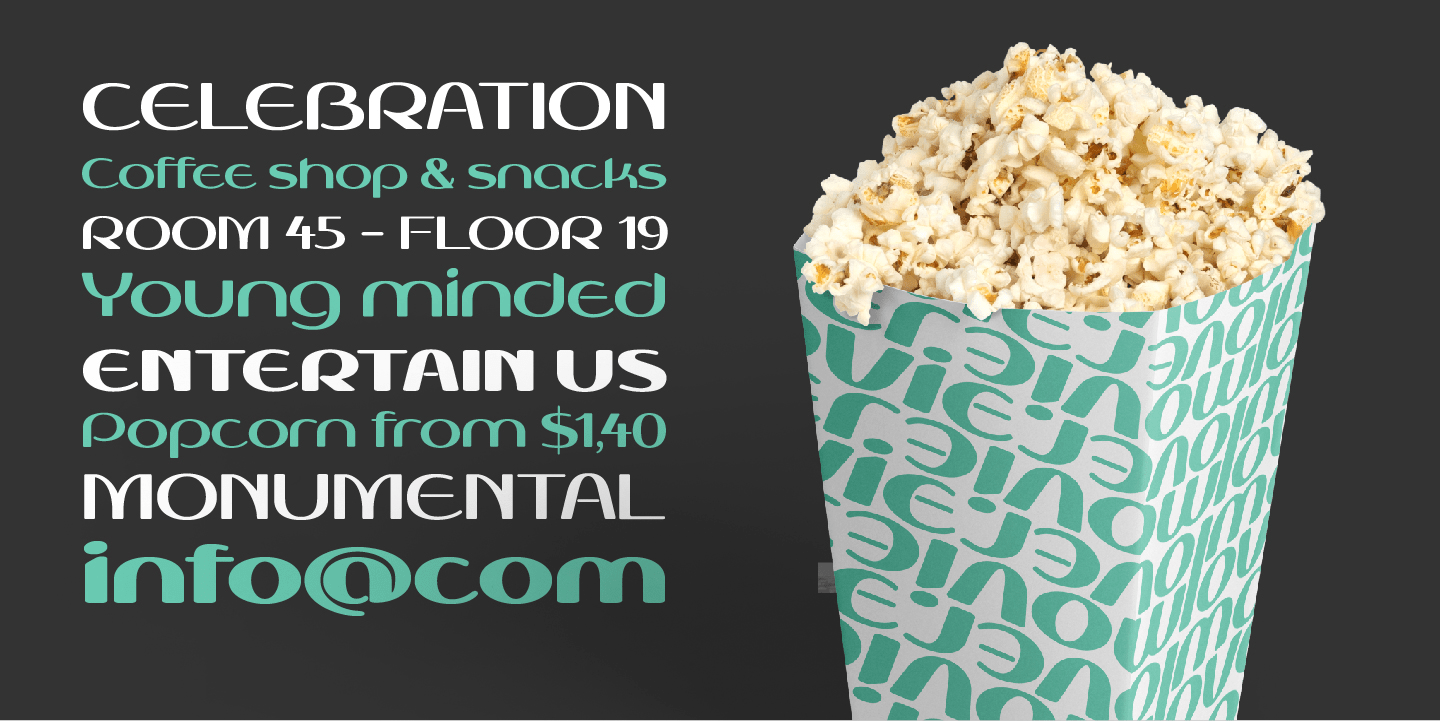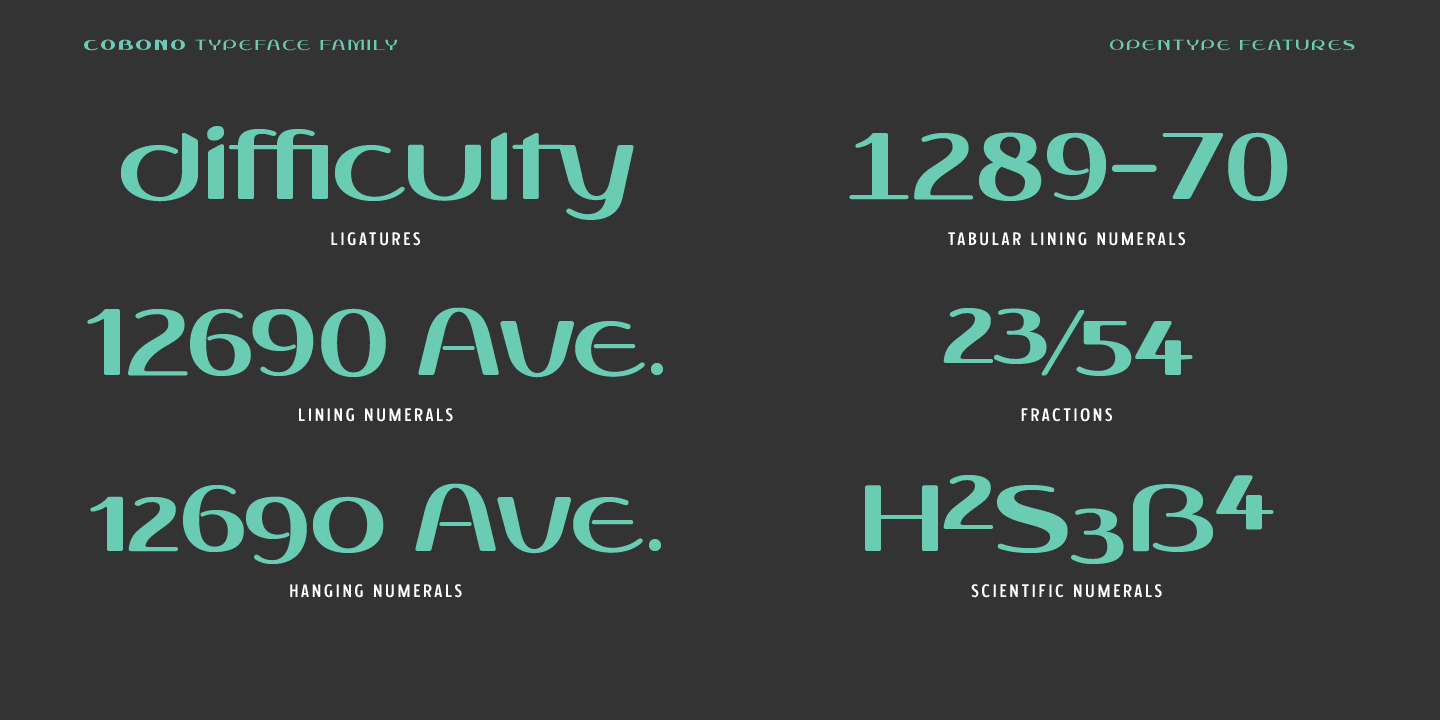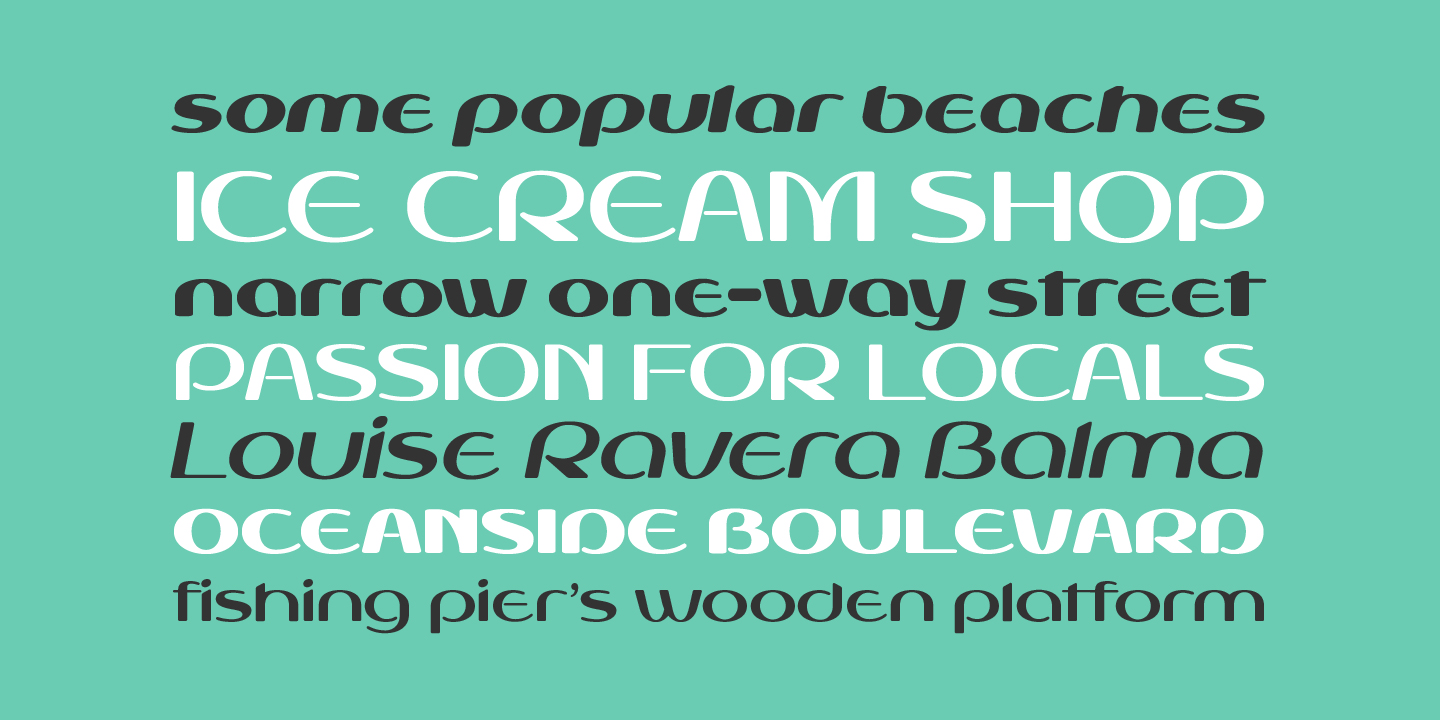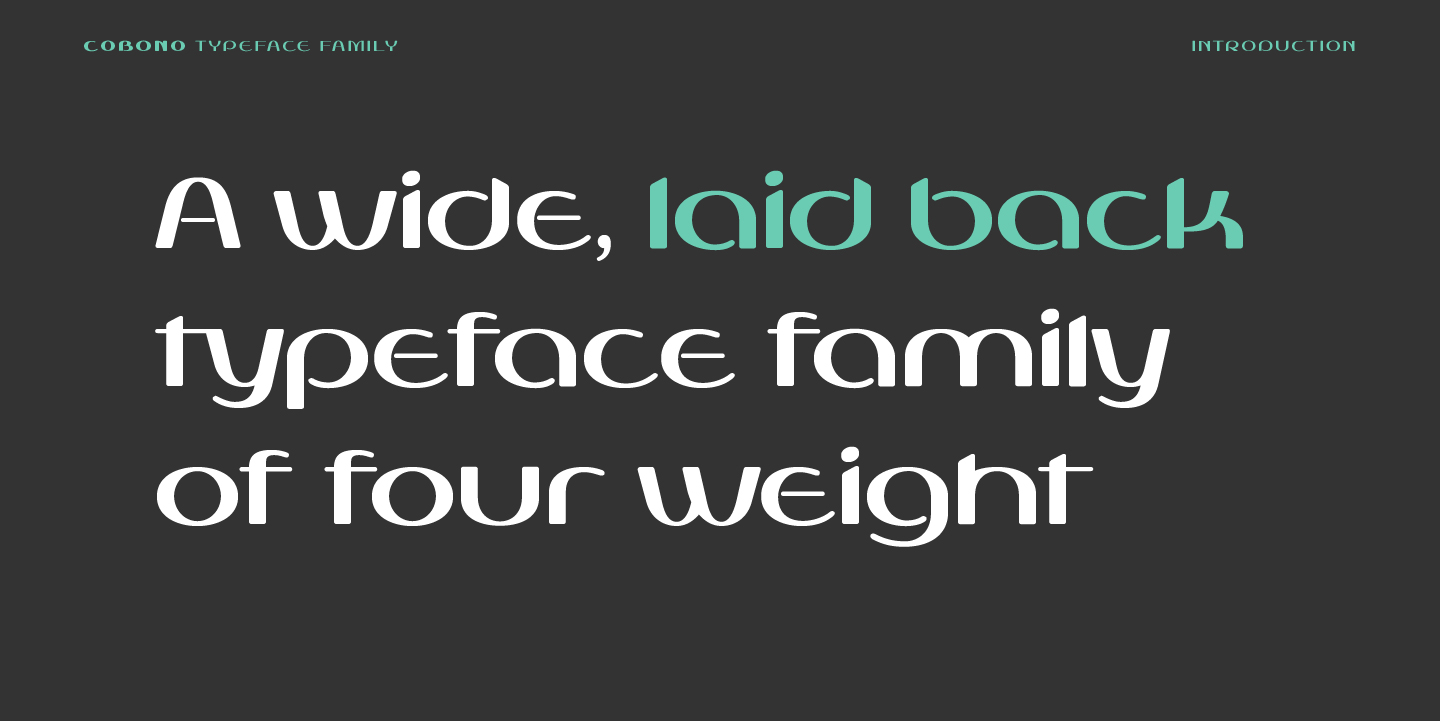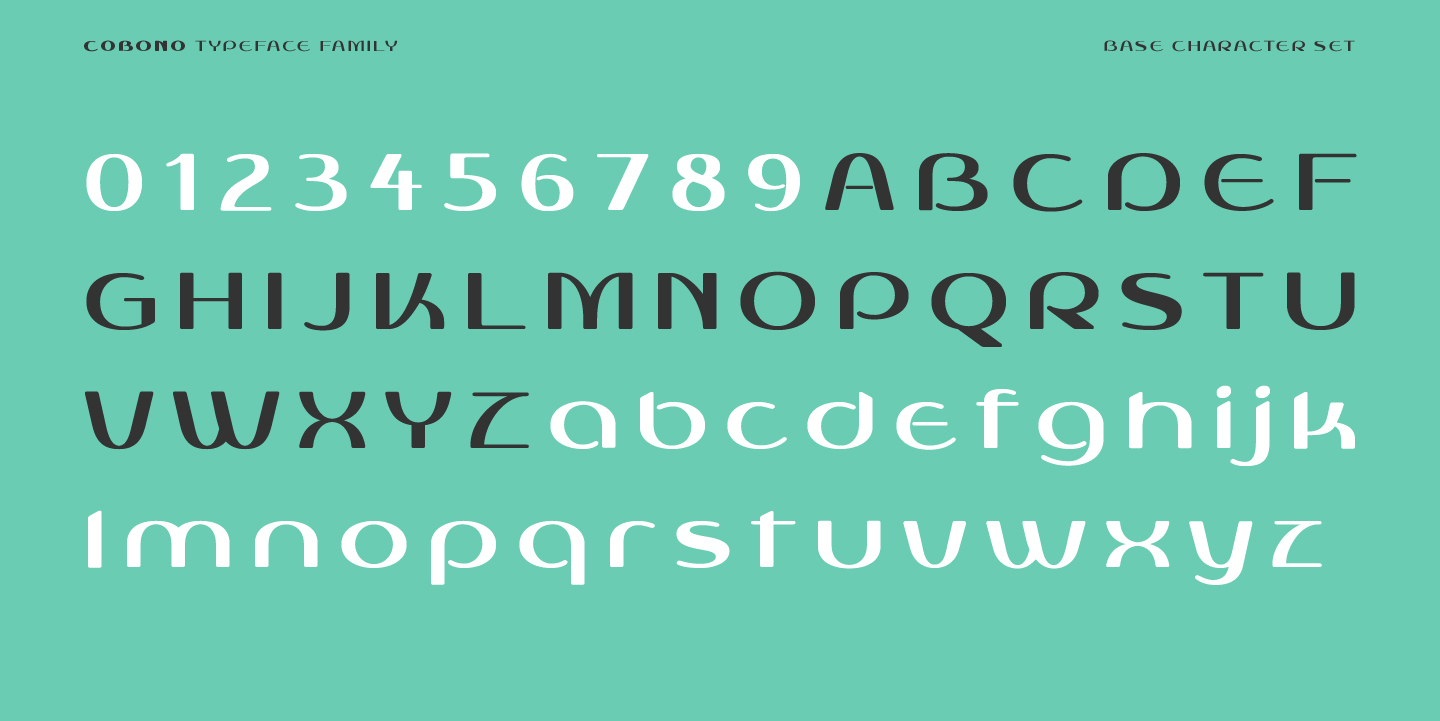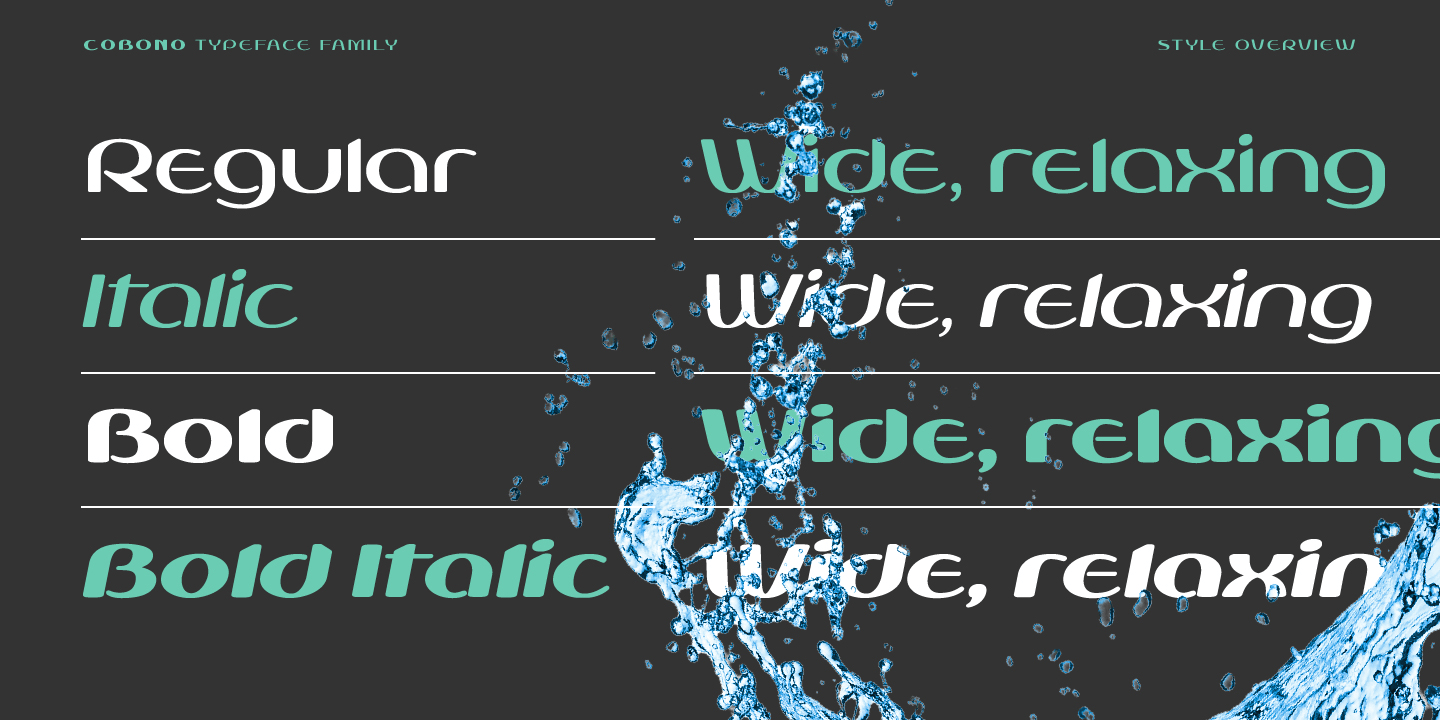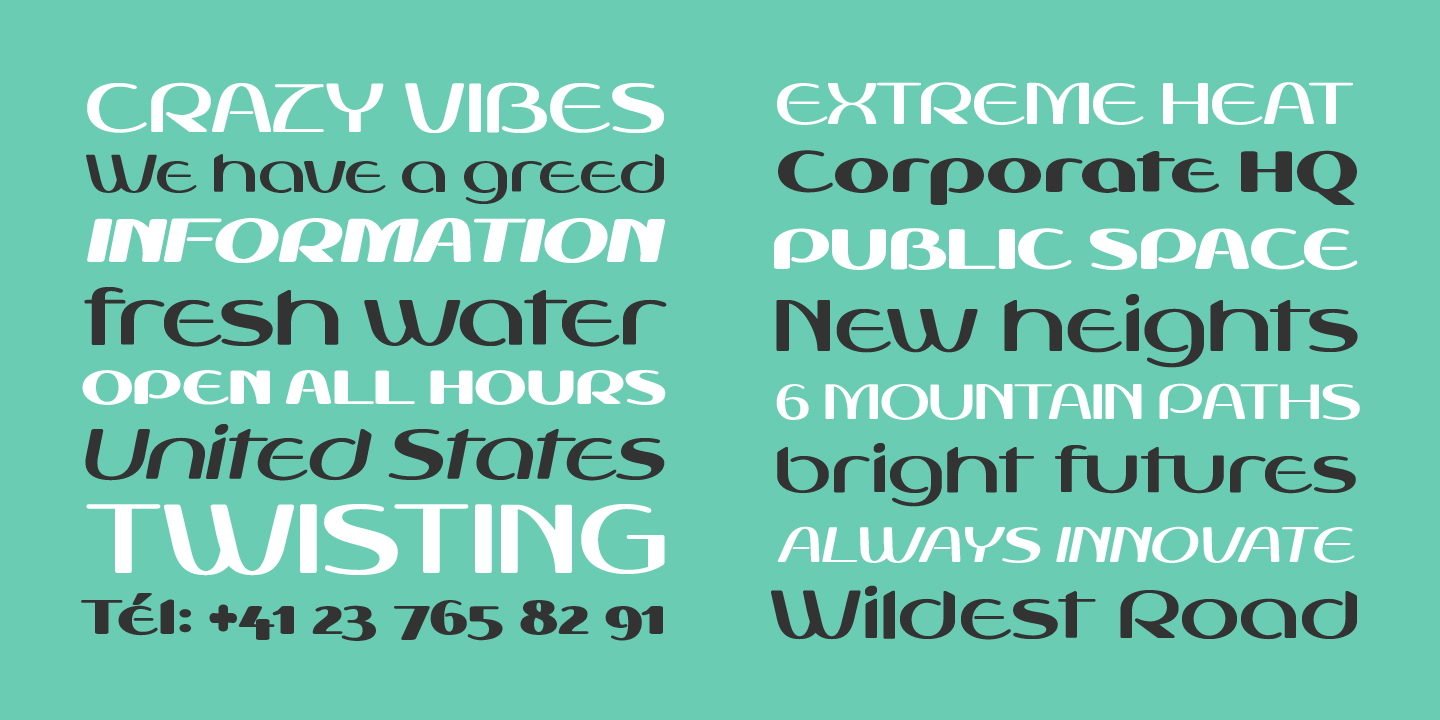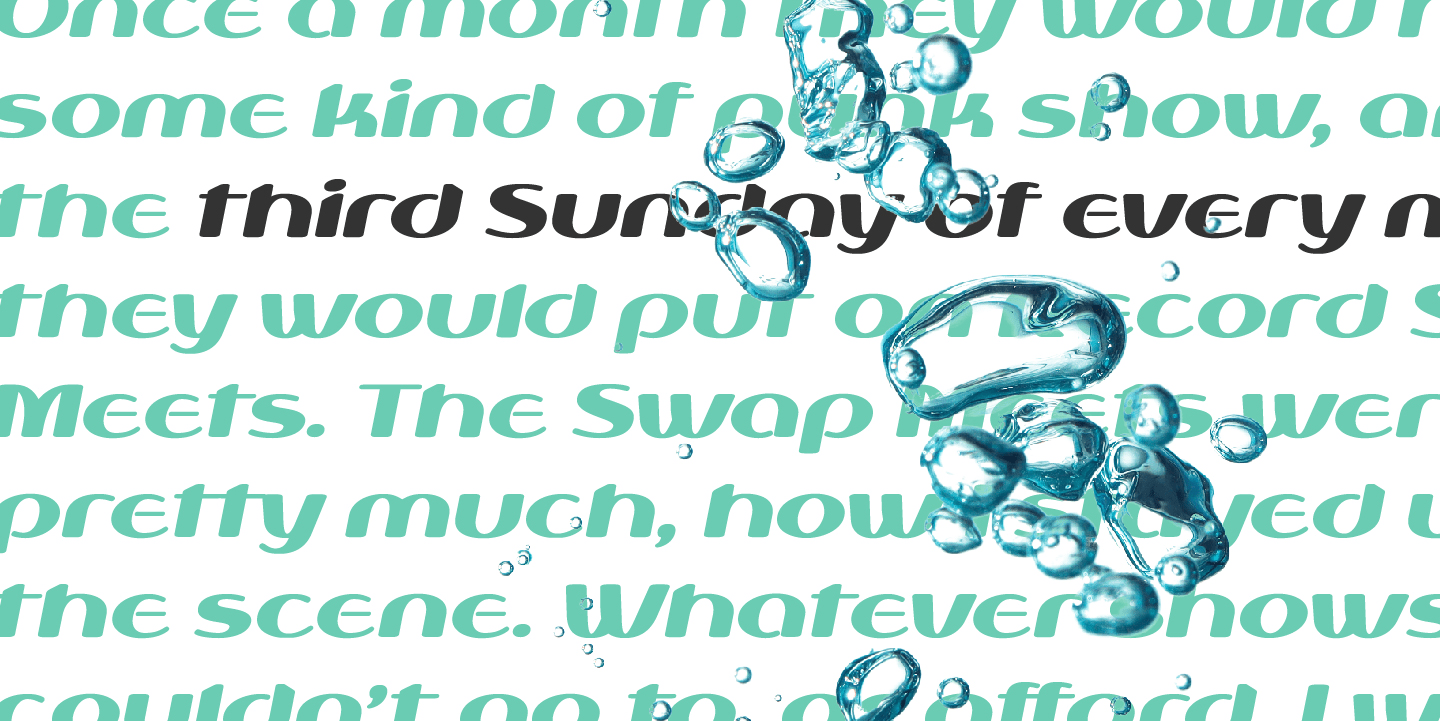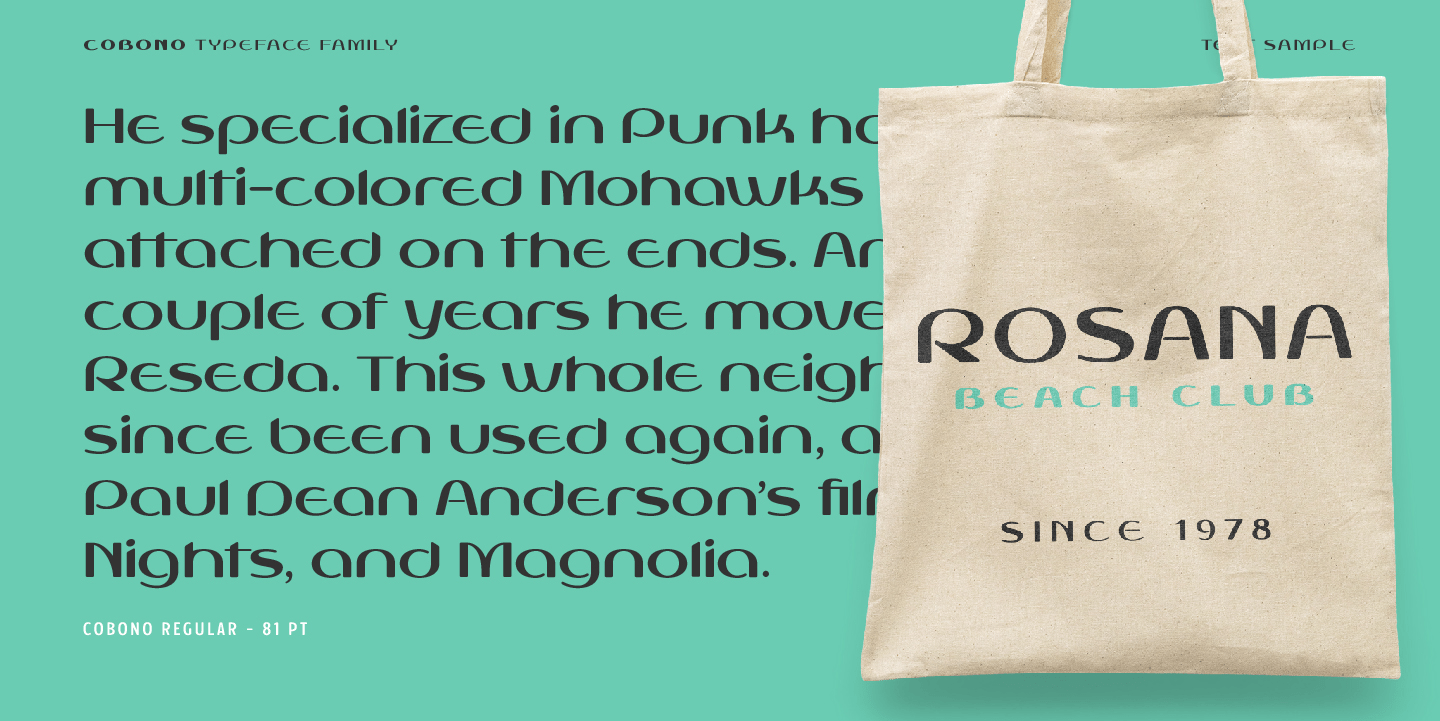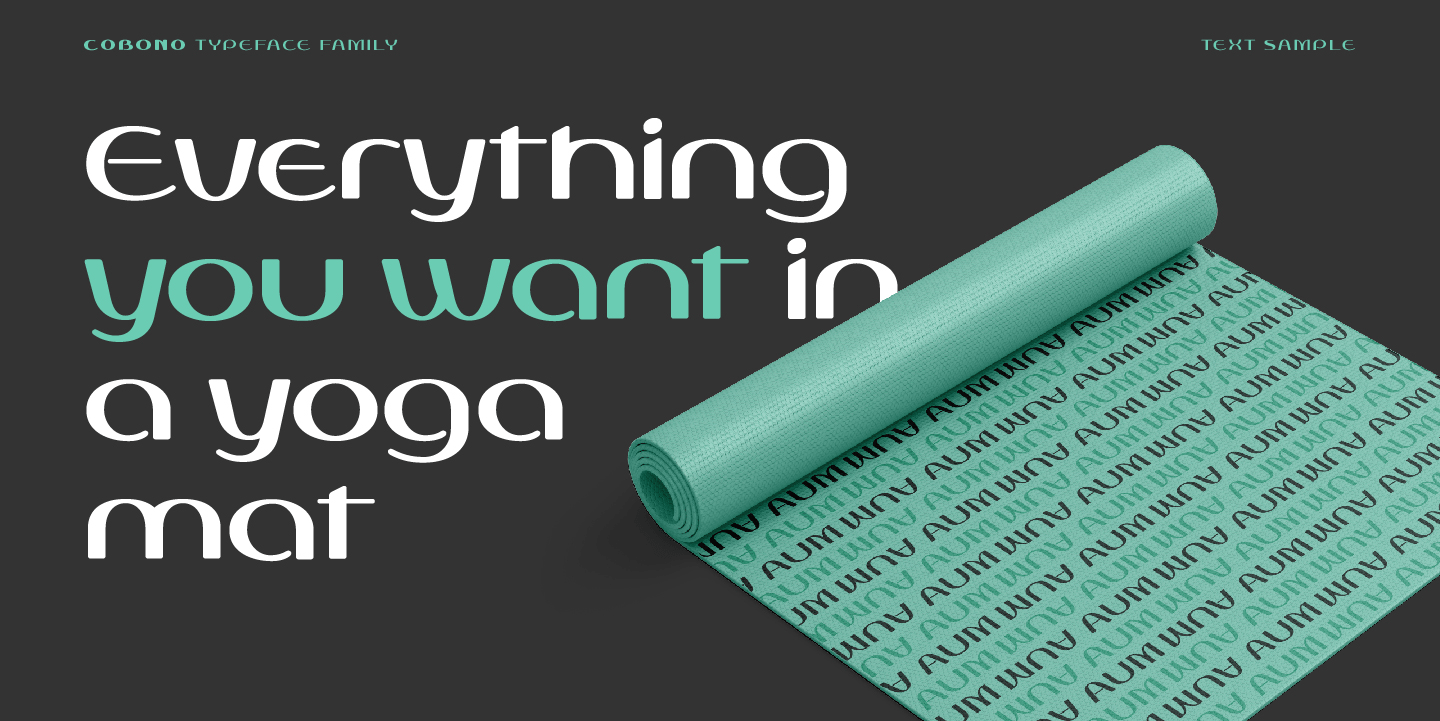
Cobono
Cobono is a friendly, rounded display typeface aimed for use in branding or short passages of text. With a wide stance, open counters and rounded terminals, it aims to evoke a calm, relaxed voice to any message and the very tall x height will give the letters strong legibility at any size. It contains a wide character set that covers the extended latin encoding and allows the support of a range of languages, from english, Polish, Turkish or Vietnamese.